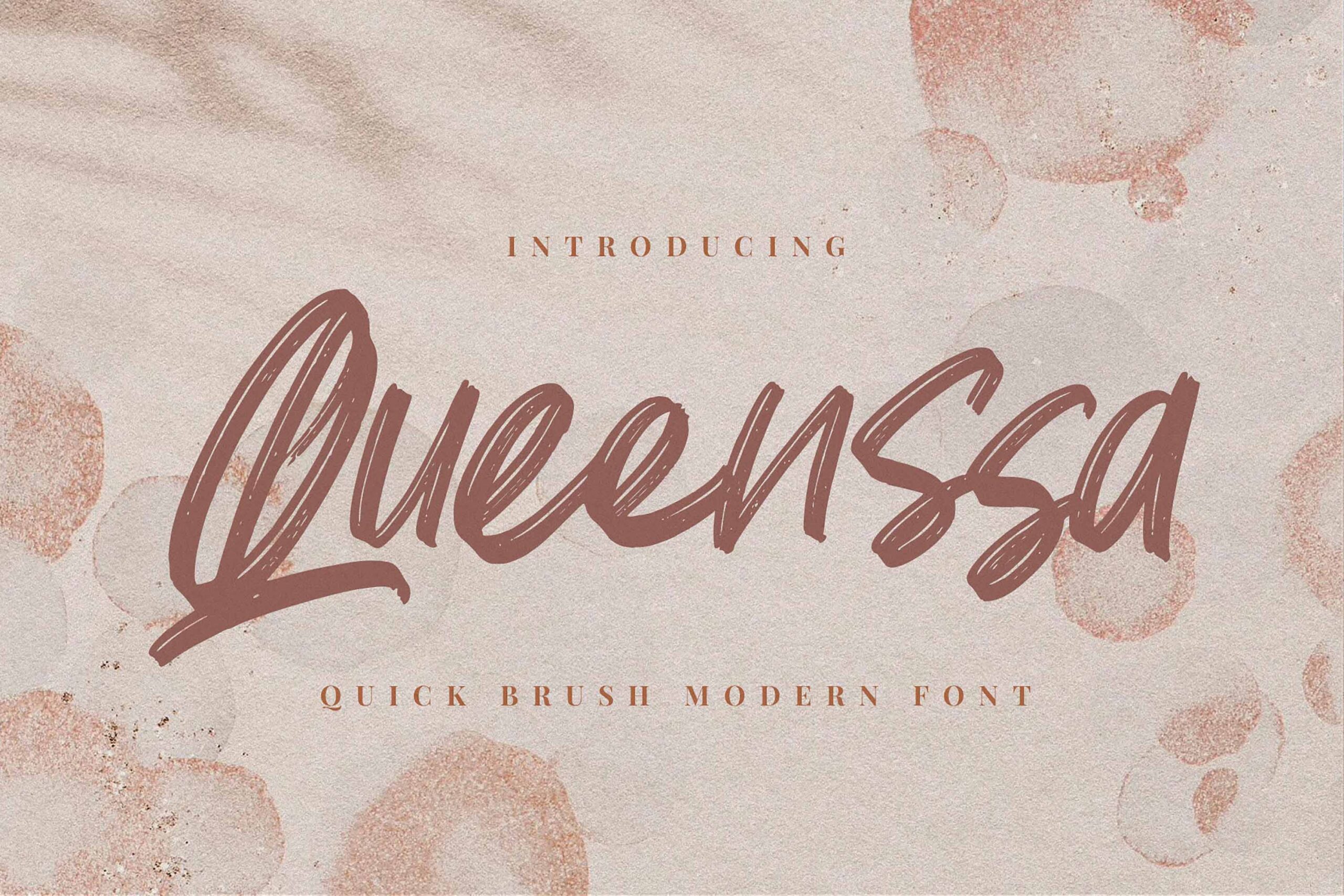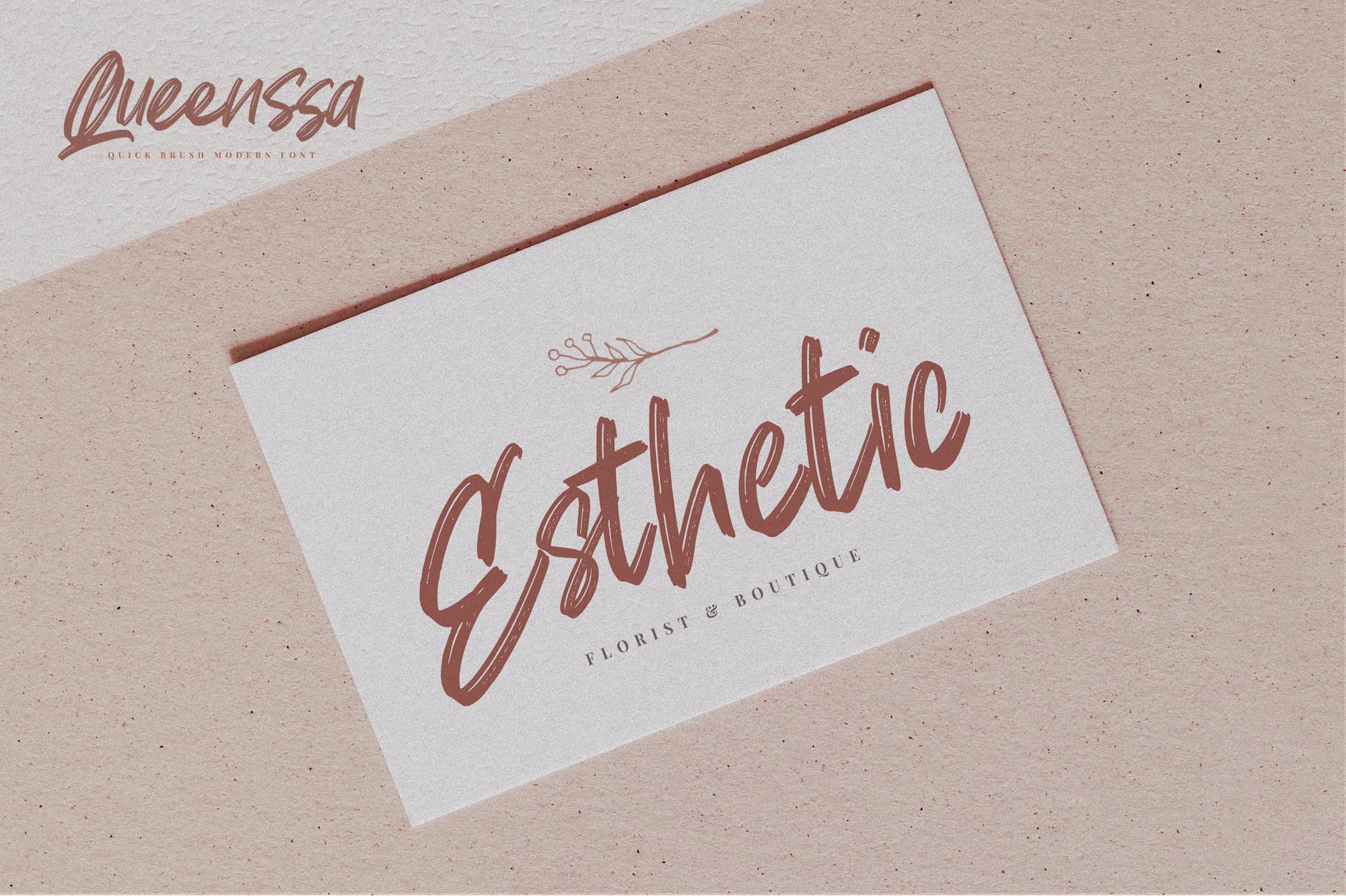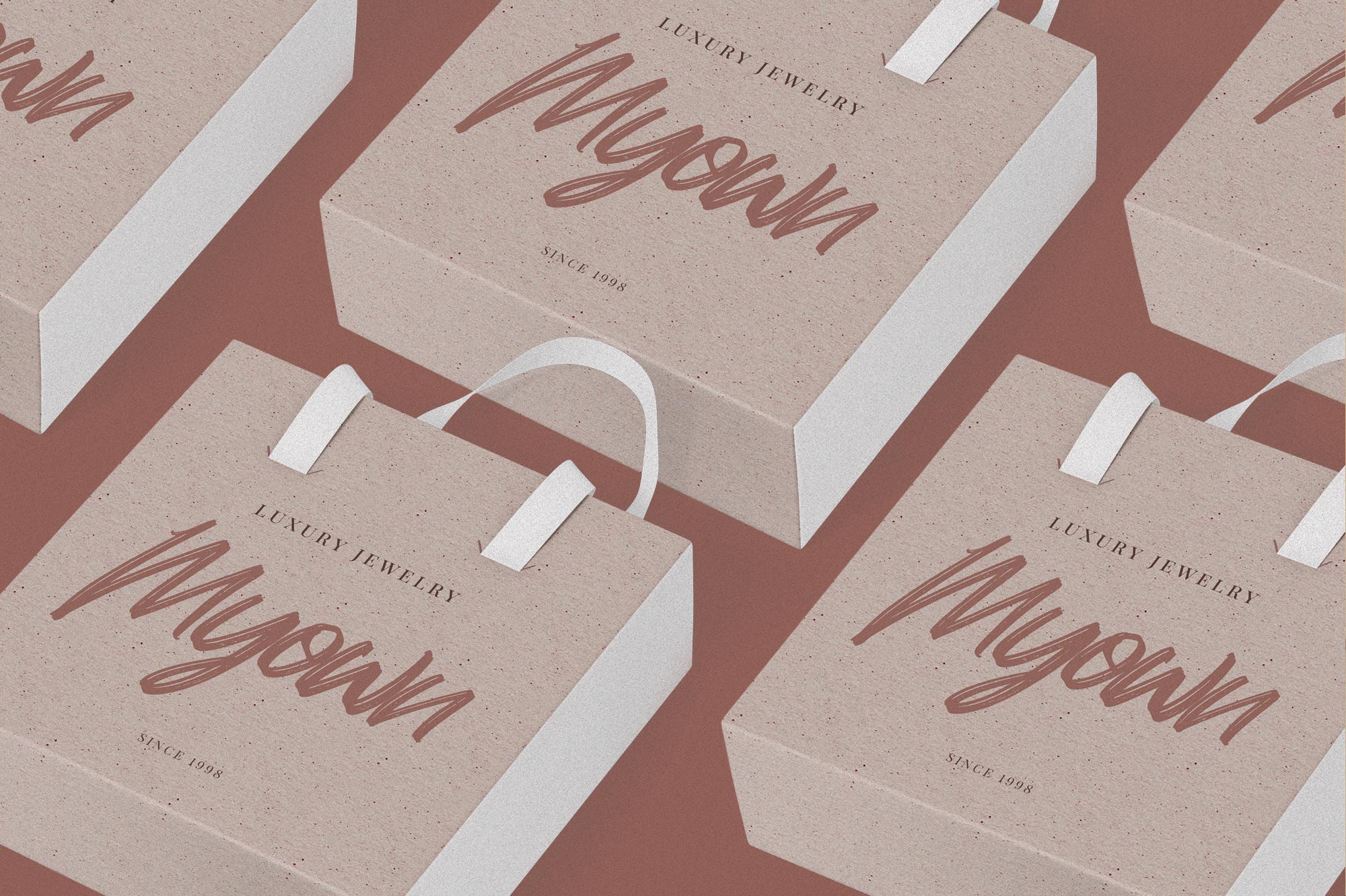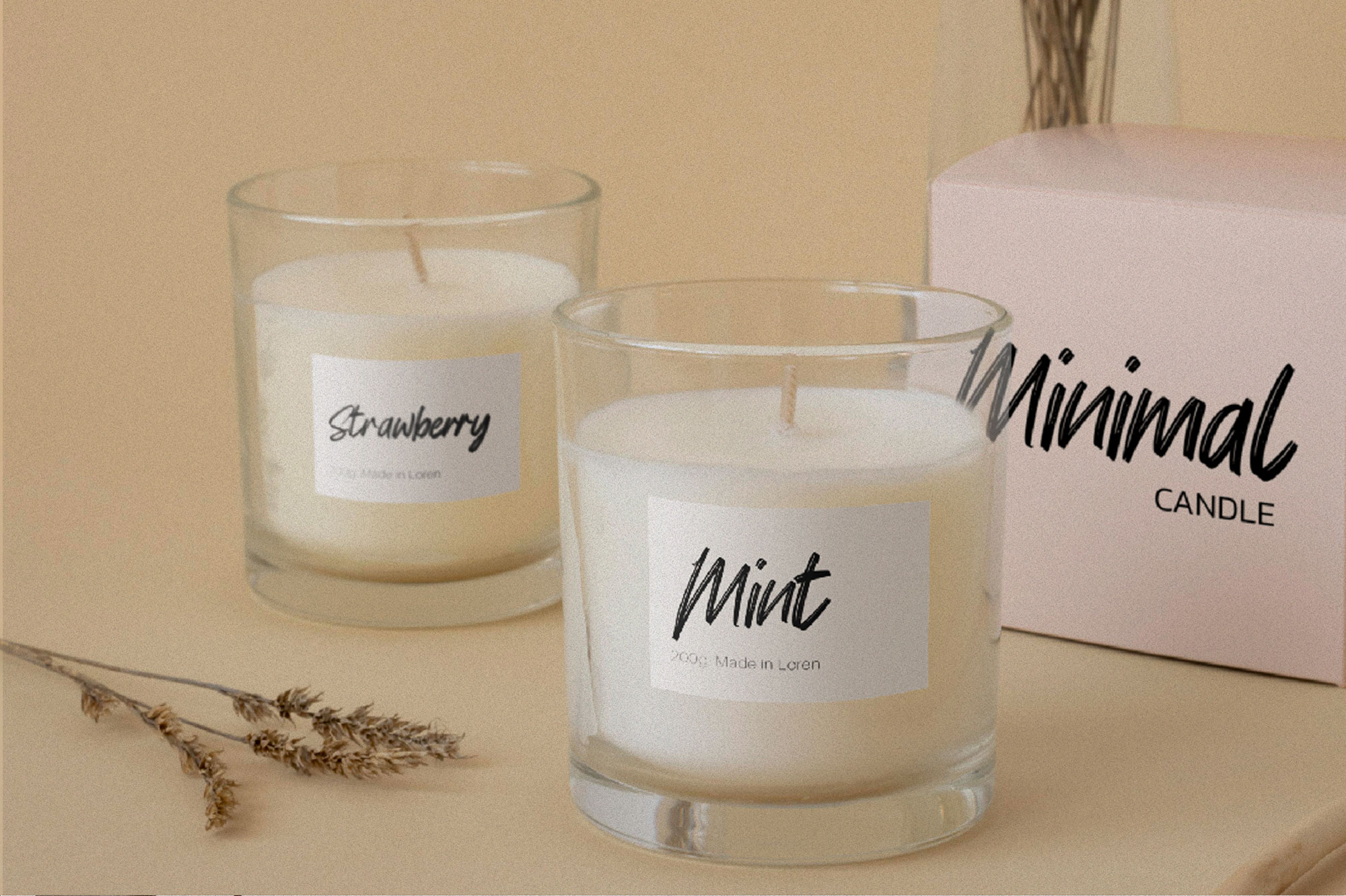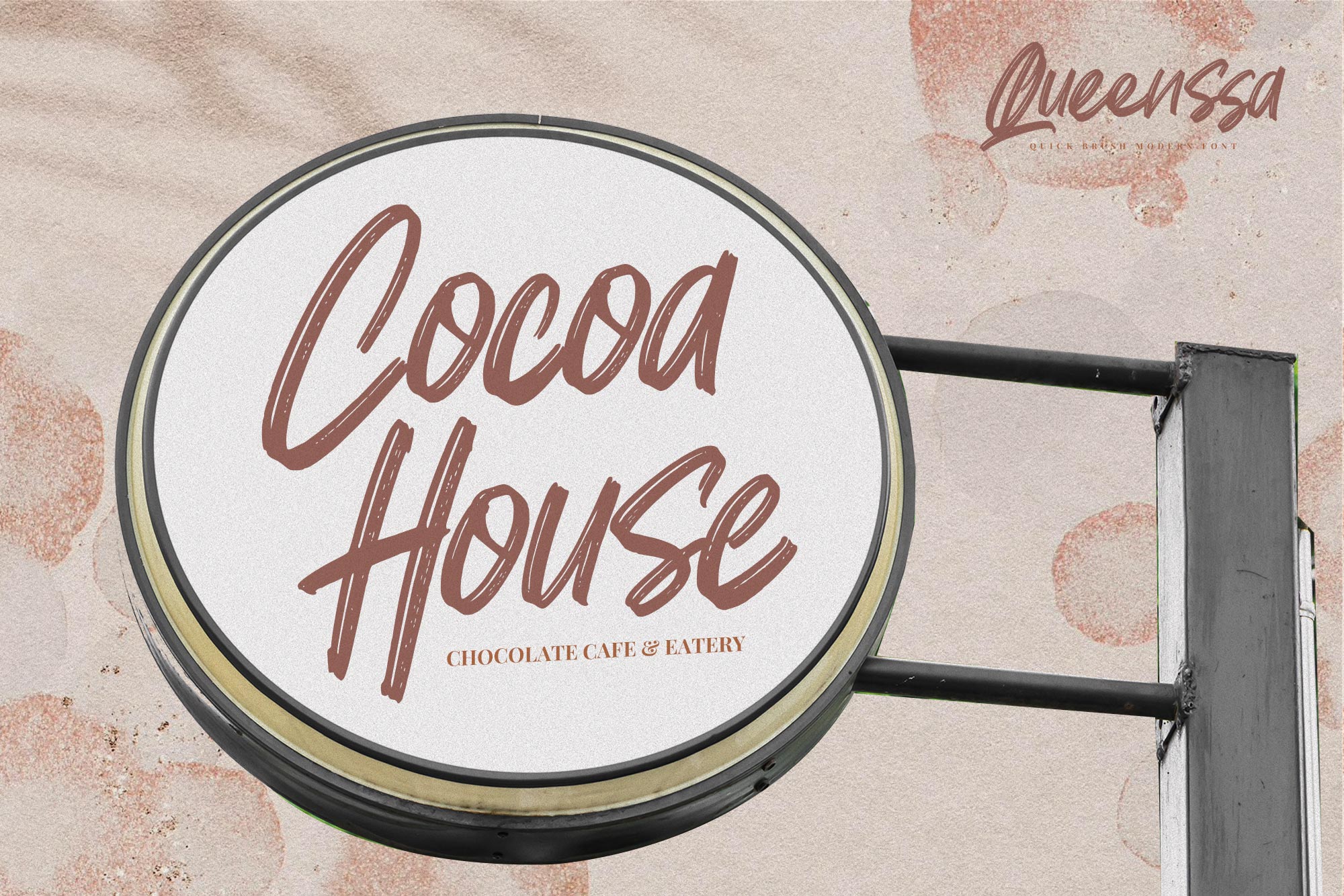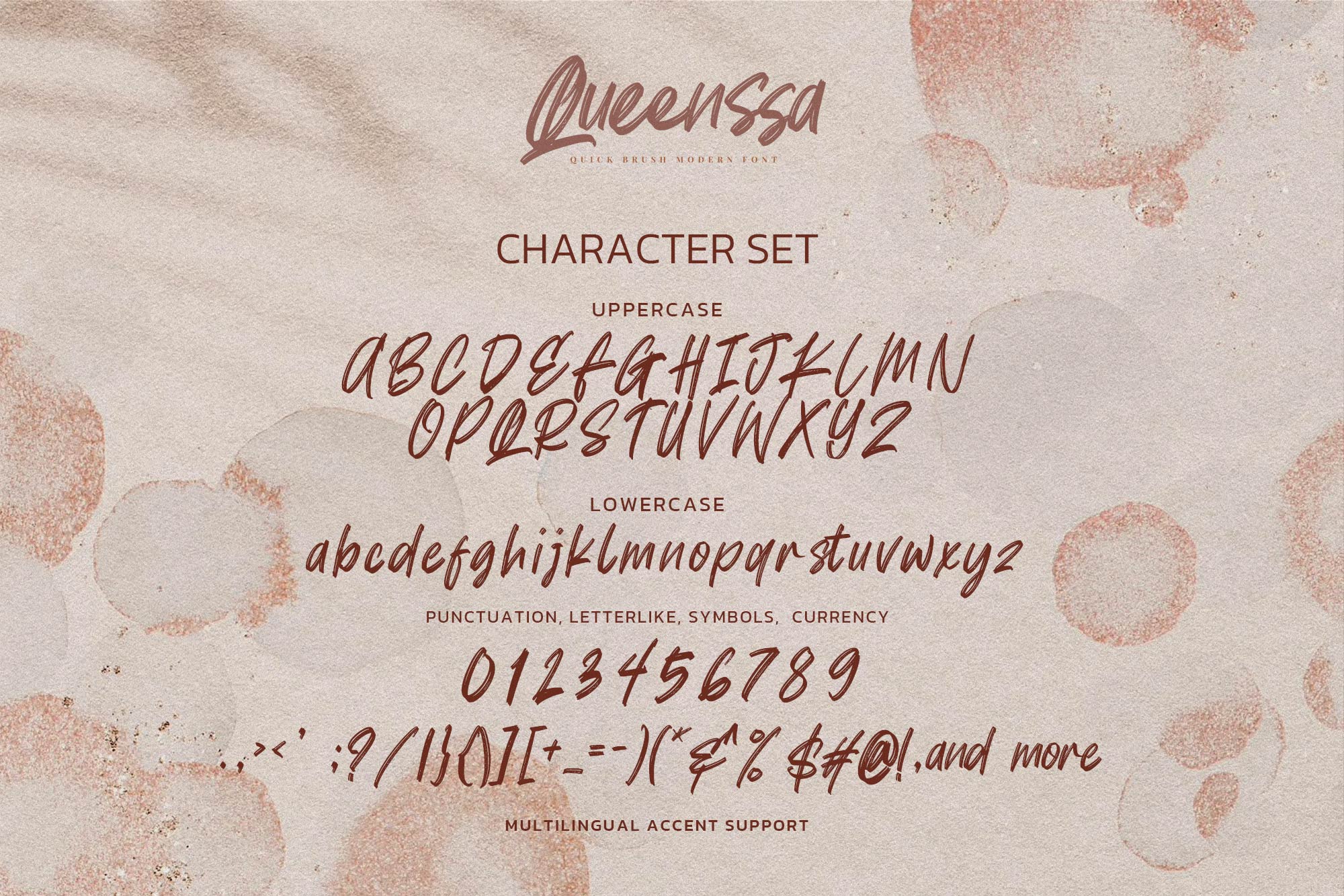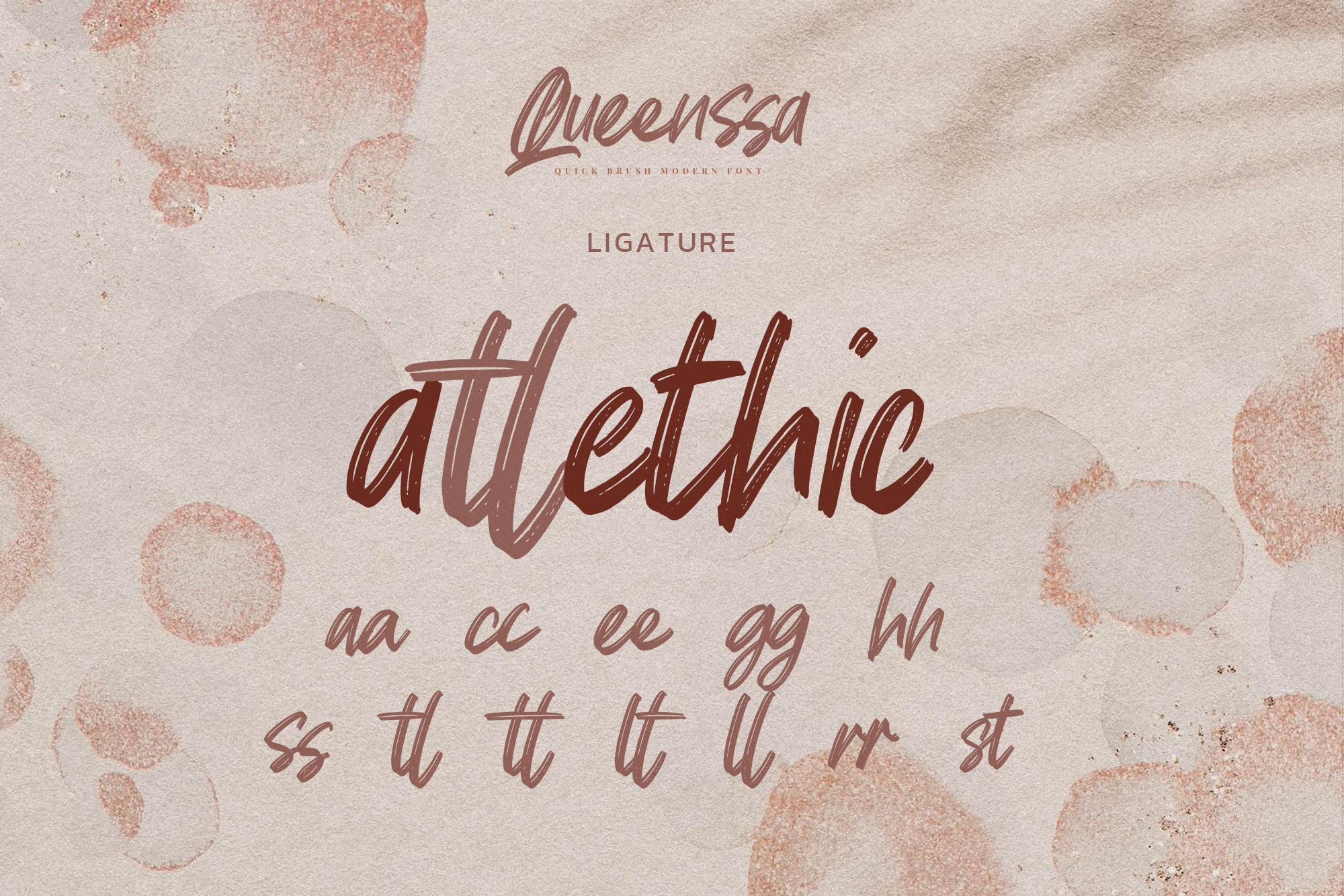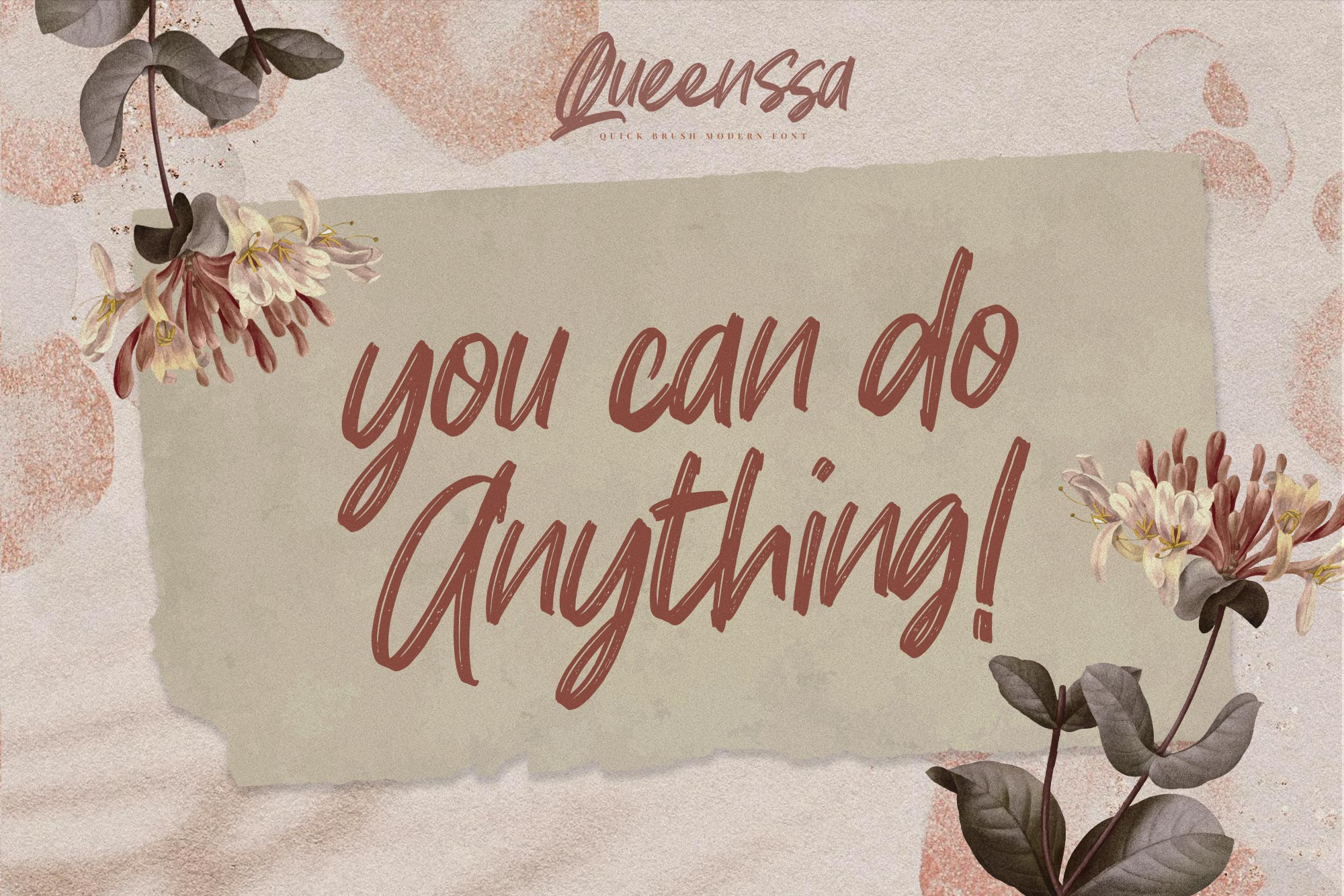
Queenssa – Quick Brush Modern Font, authentic style and dramatic movement that is written casually and quickly.
The best for labels, poster, project designs look ,handwritten and cool . It’s perfect for labels, quotes, posters, DIY projects, branding, packaging, greeting cards, websites, photography overlays, signs, scrapbooking, tags and so much more! That is why Queenssahas a textured, and unique characteristic more natural look. You can activate Ligatures OpenType panel.